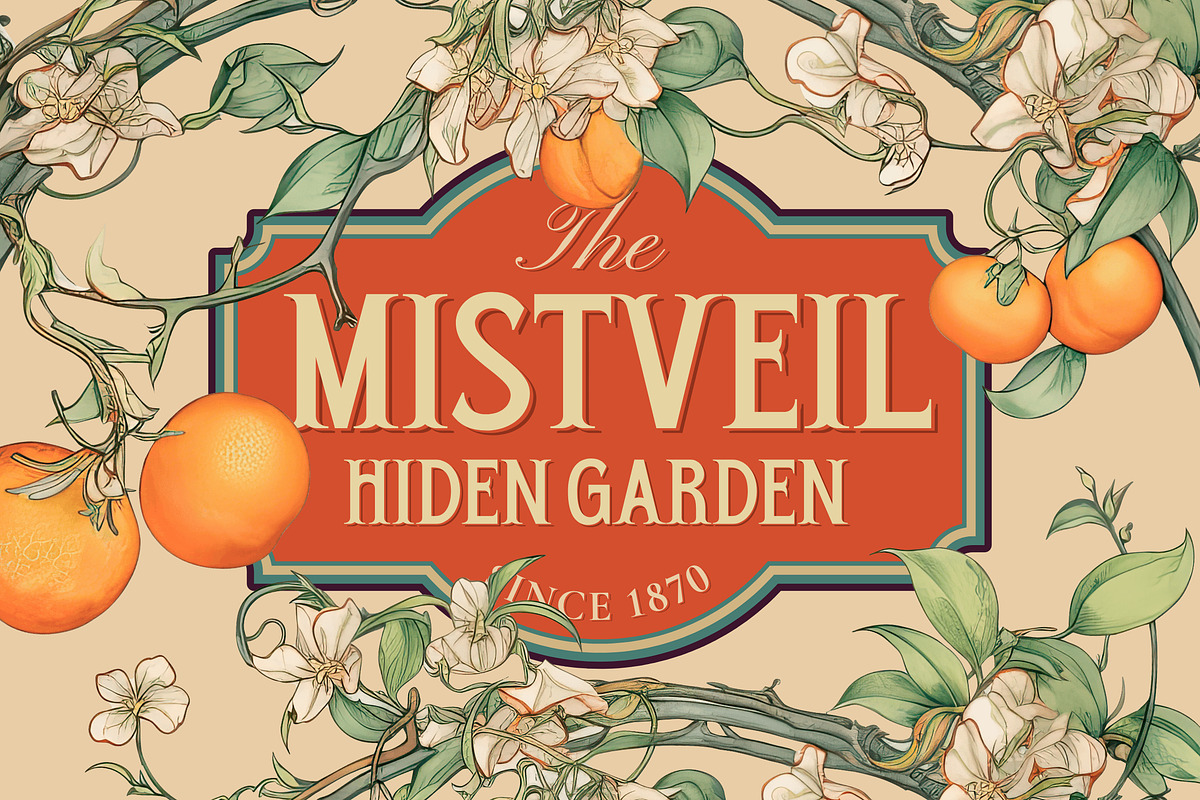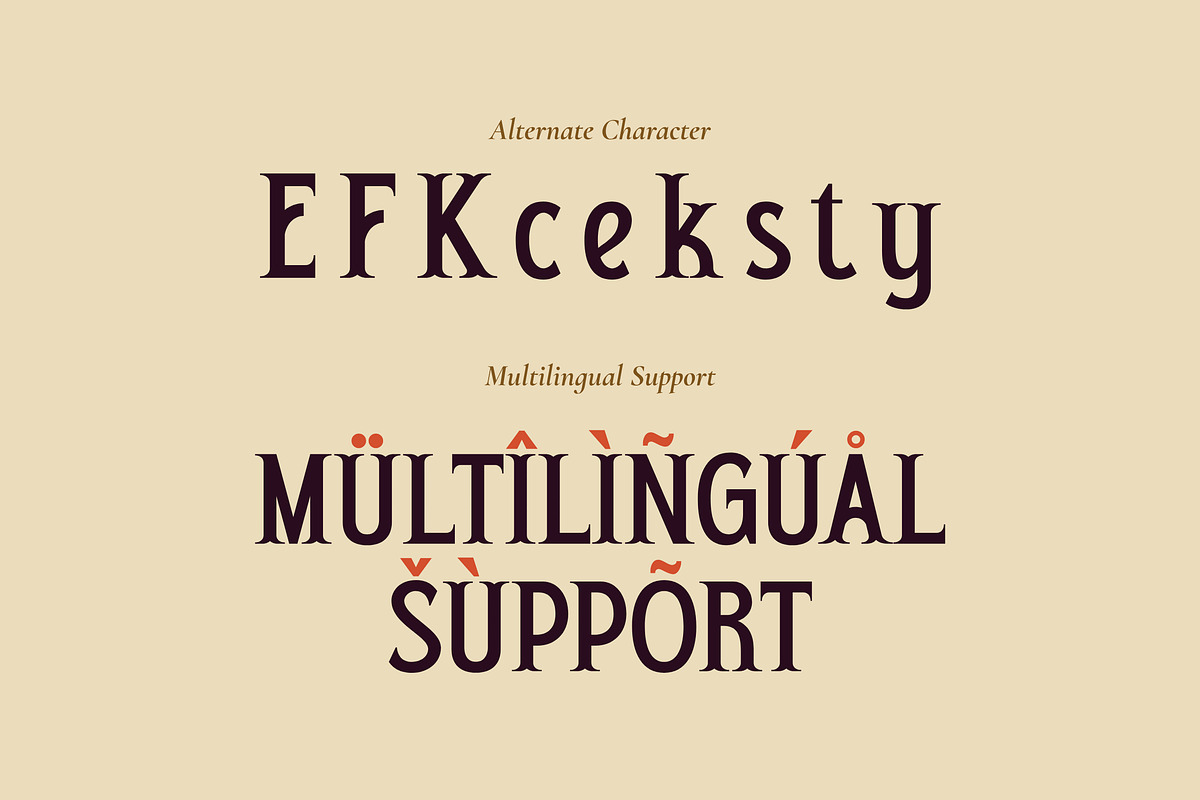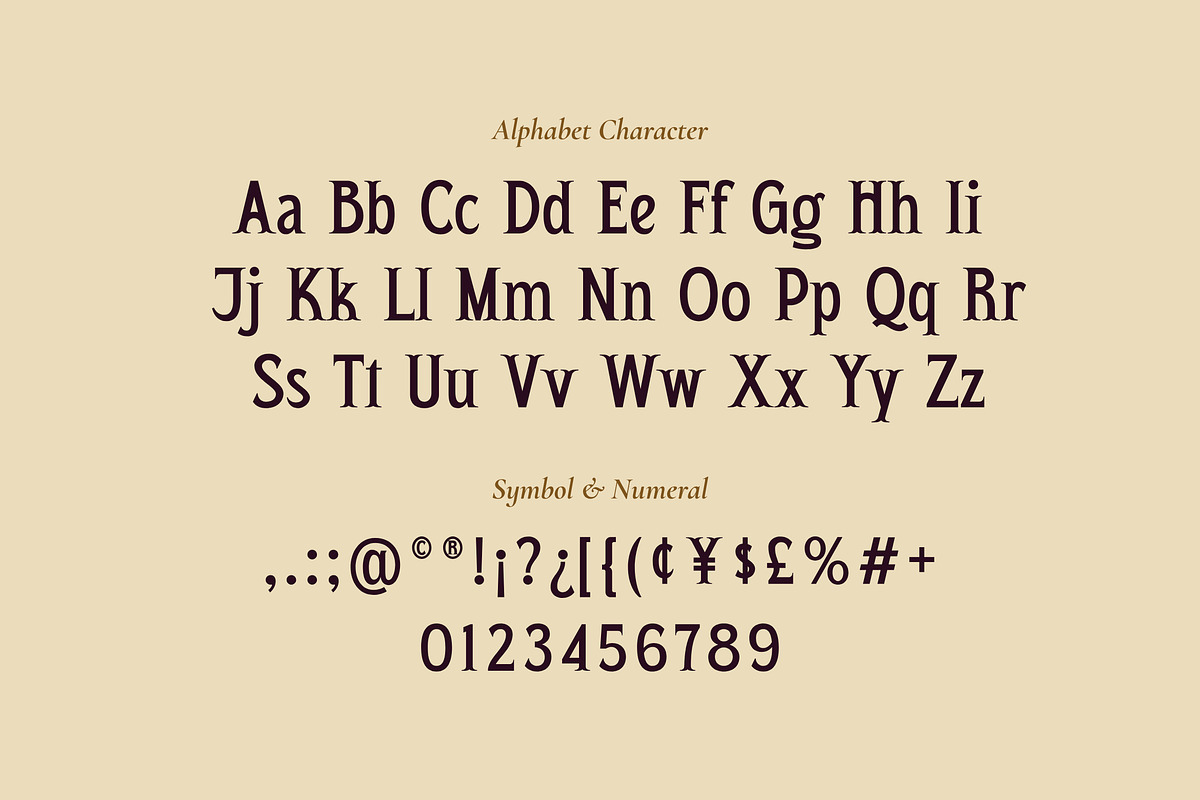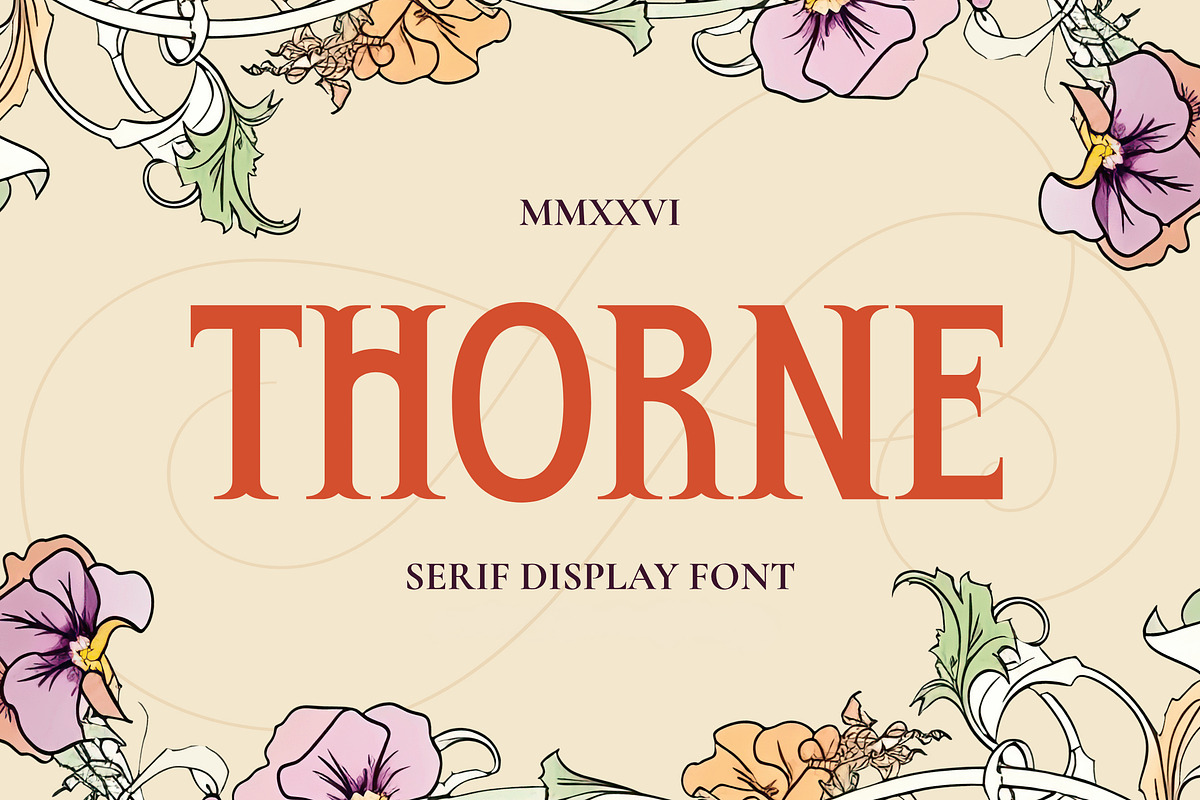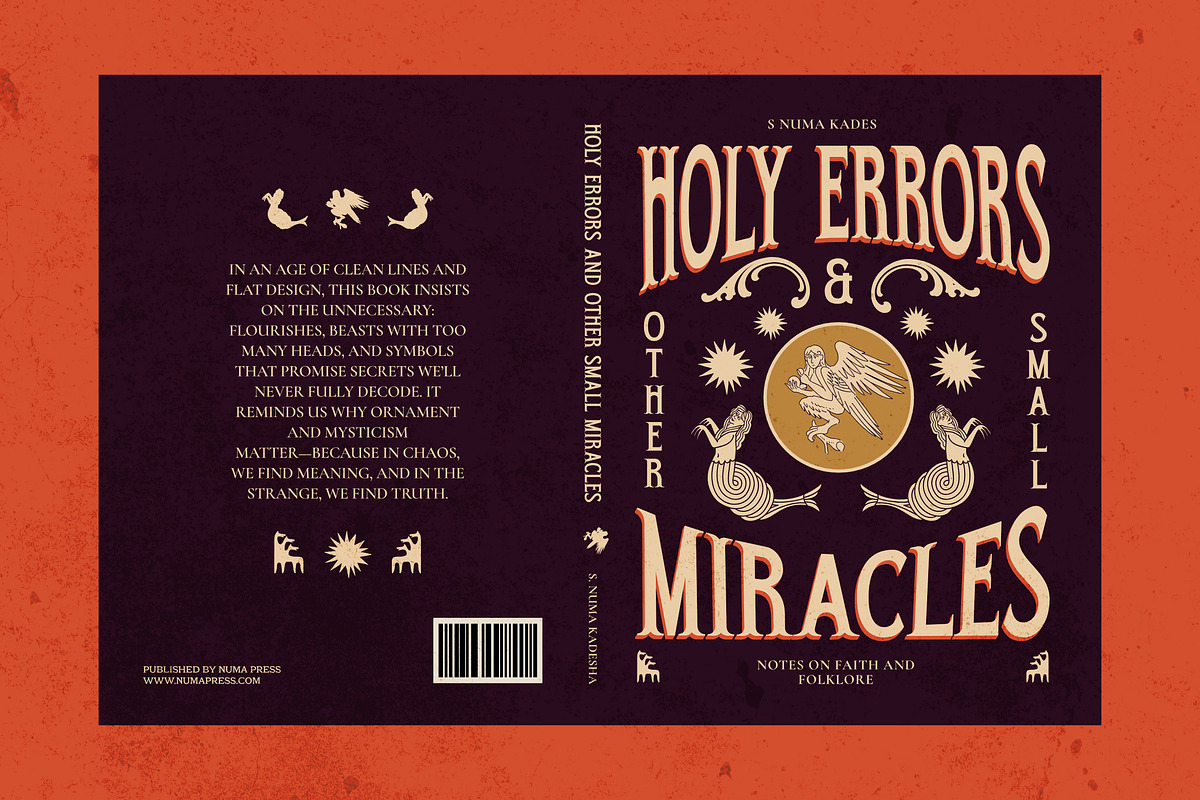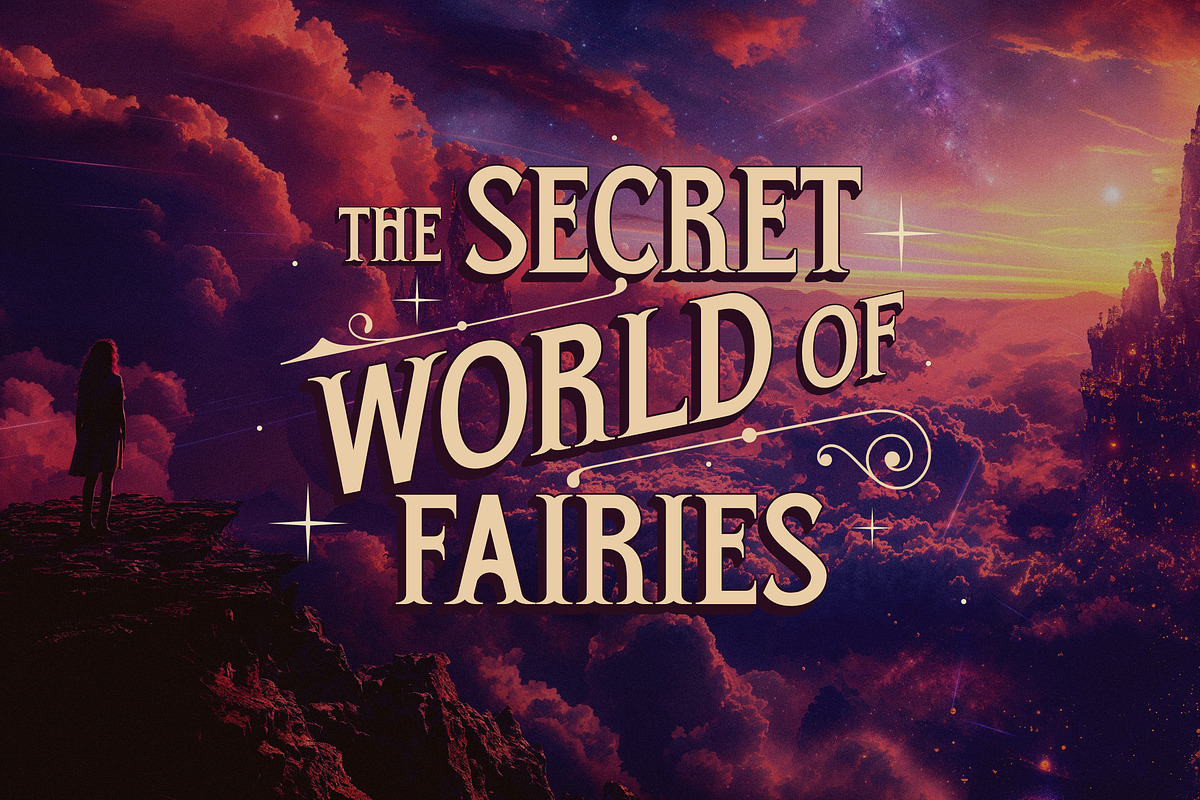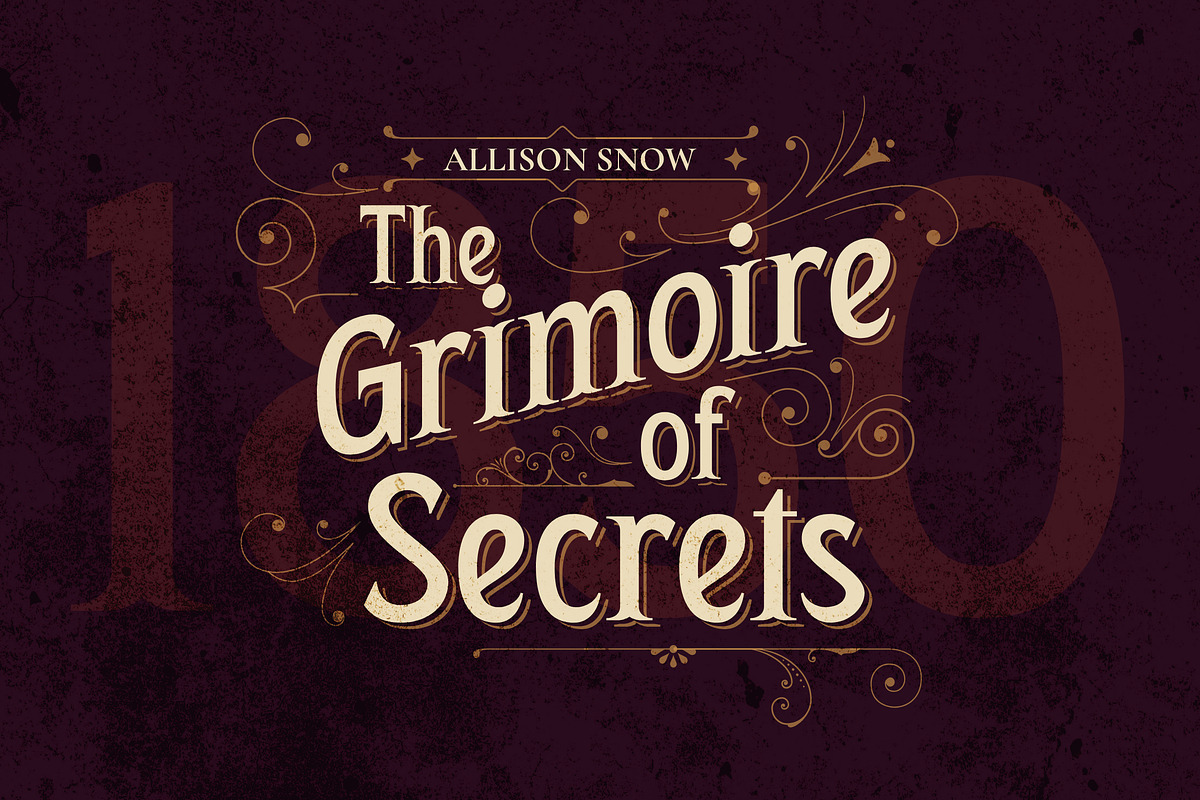
Thorne - Mystical Serif Display
Thorne is a captivating mystical serif display font designed for storytellers, dreamers, and brand designers who want their work to feel deeply rooted in history and magic. Taking inspiration from victorian era typography and the art nouveau movement.
The soul of Thorne lies in its tapered, needle like serifs that flare out from the stems, mimicking the natural architecture of a rose stem. Every stroke is defined by a dramatic contrast.
It carries a Victorian apothecary weight, making it an ideal choice for labels, branding, book cover, and editorial layouts that lean into the "Dark Academia" or "Ethereal Folk" aesthetic. Whether it’s the title of a fantasy novel or the logo for a botanical brand.
- Uppercase and Lowecase Characters.
- PUA Encoded Characters.
- Numerals and Punctuations.
- Alternates and Ligatures.
- Multilingual Support.